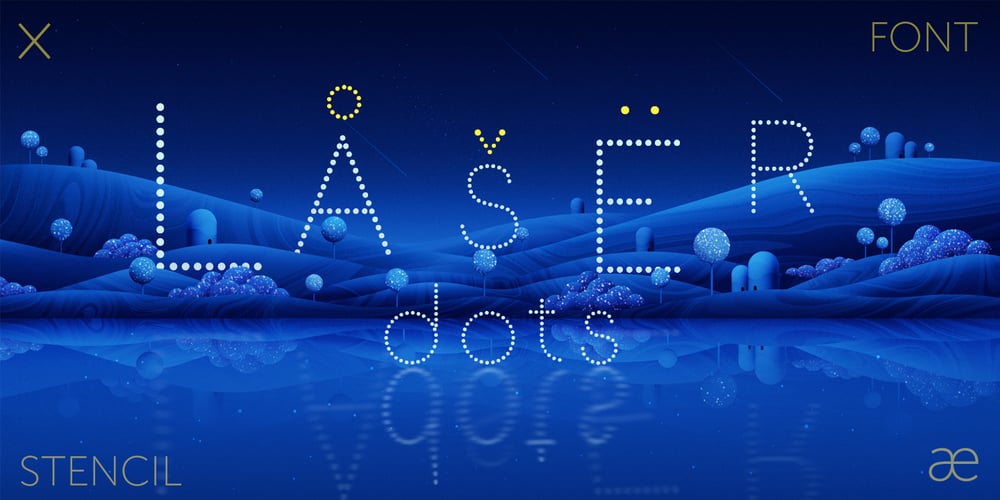
Laser Dots
Laser Dots font
Laser Dots Font Family was designed by Alex Etewut and published by Etewut. Laser Dots contains 1 styles and family package options. Laser dots display font is based on sans serif. Use it in your design be it cards, outside commercial, web or product adds and laser cuts. It has foreign characters so you may use your mother language.